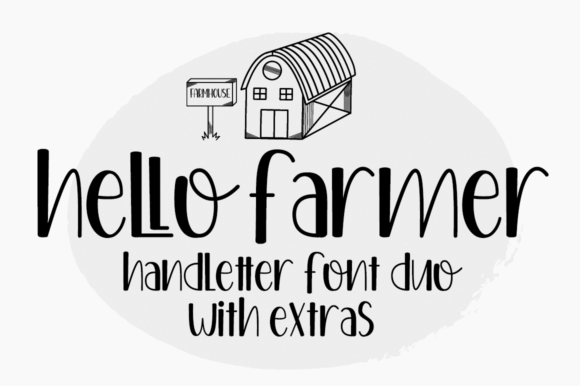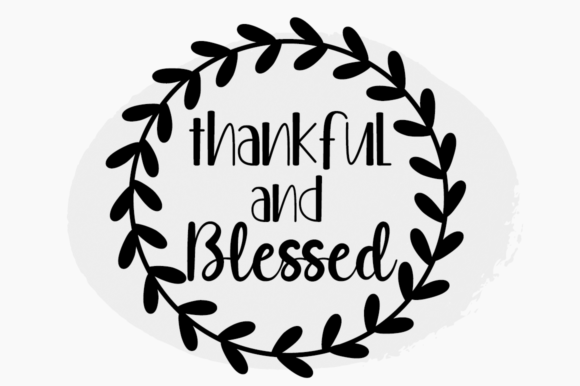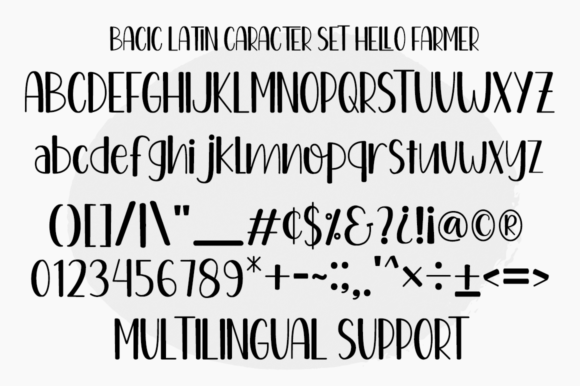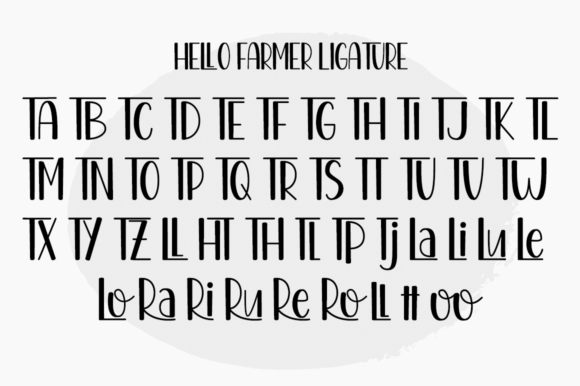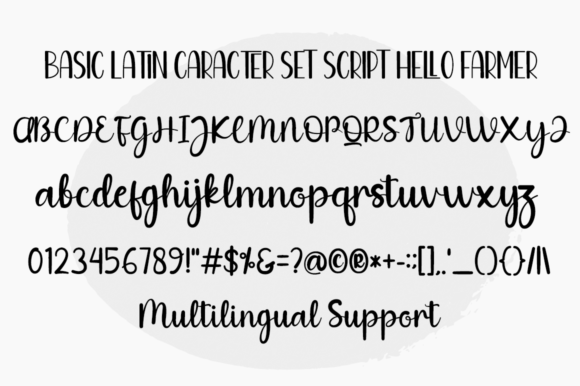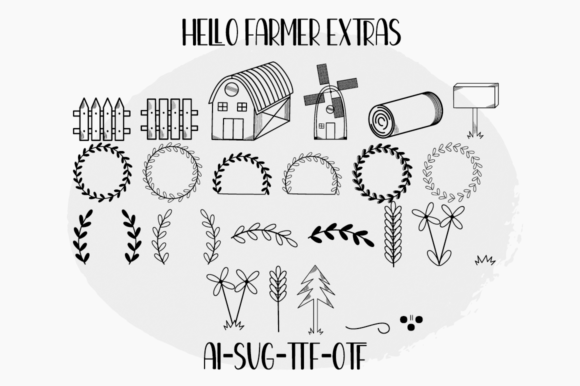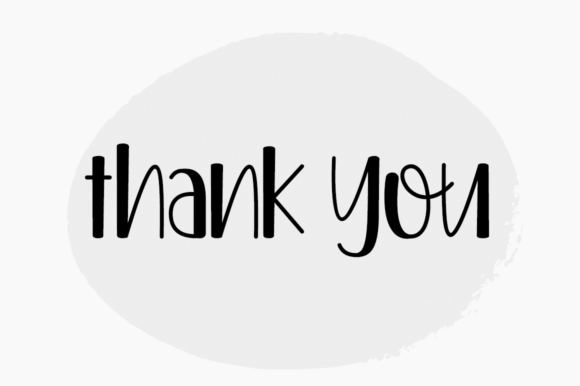
About Hello Farmer Duo Font
Hello Farmer, a lively and whimsical handwritten font duo, injects a sense of fun and playfulness into your creative projects. With a touch of quirkiness, this font proves to be incredibly versatile, seamlessly adapting to a wide variety of contexts and design applications.
The duo aspect of Hello Farmer implies that there are likely two complementary styles or weights within the font family, providing users with options to mix and match for added visual interest. This versatility allows you to experiment with different combinations, making it suitable for a range of design projects.
The fact that Hello Farmer is PUA encoded is a notable feature. PUA (Private Use Area) encoding enables users to access a treasure trove of special glyphs and ligatures effortlessly. This means you have the freedom to explore and utilize unique characters, alternate letterforms, and stylistic variations, adding a layer of creativity and customization to your designs.
In terms of applications, Hello Farmer is well-suited for a variety of contexts. Its whimsical nature makes it perfect for lighthearted and creative projects such as invitations, greeting cards, posters, or any design that benefits from a touch of playfulness.
The font’s adaptability extends to digital media, making it a great choice for social media graphics, blog headers, or any online content that aims to capture attention with a fun and quirky vibe. Hello Farmer’s ability to resonate with a diverse range of audiences makes it a valuable asset for those seeking a font that can effortlessly communicate a sense of joy and approachability.
In summary, Hello Farmer is not just a font duo; it’s a dynamic and playful tool that adds a spark of whimsy to your creative endeavors. With PUA encoding enhancing its versatility, this font is sure to bring a touch of fun to a multitude of design contexts, making it a delightful choice for those who want their projects to stand out with personality and charm.